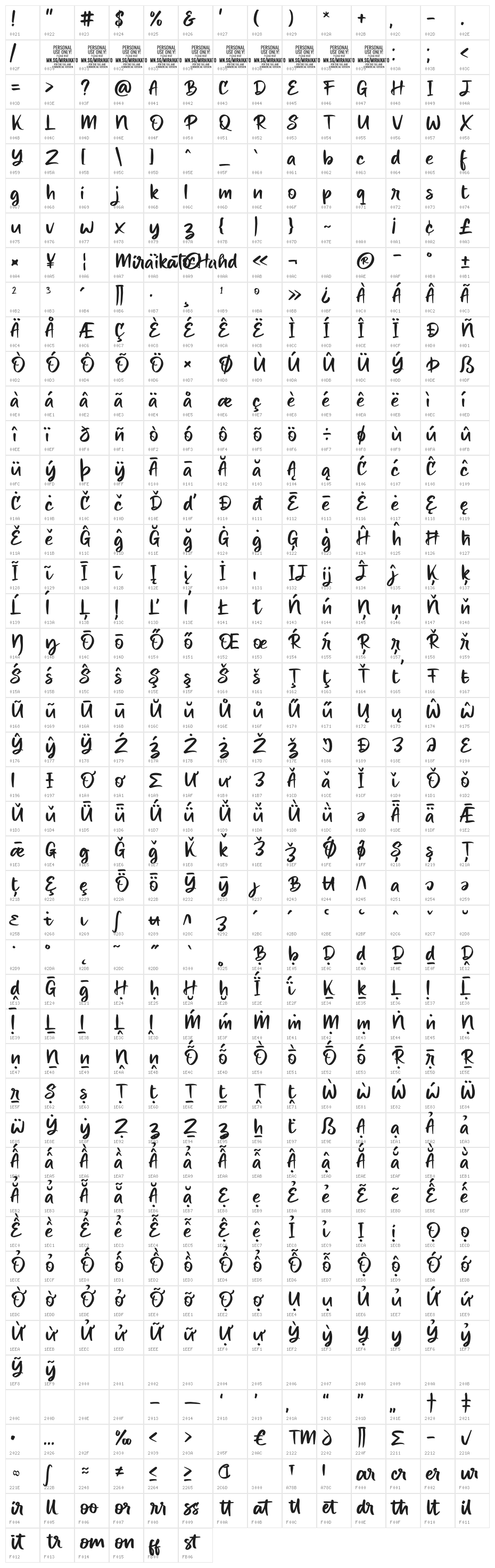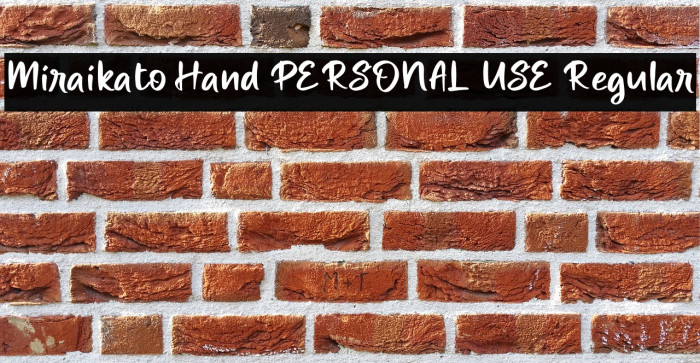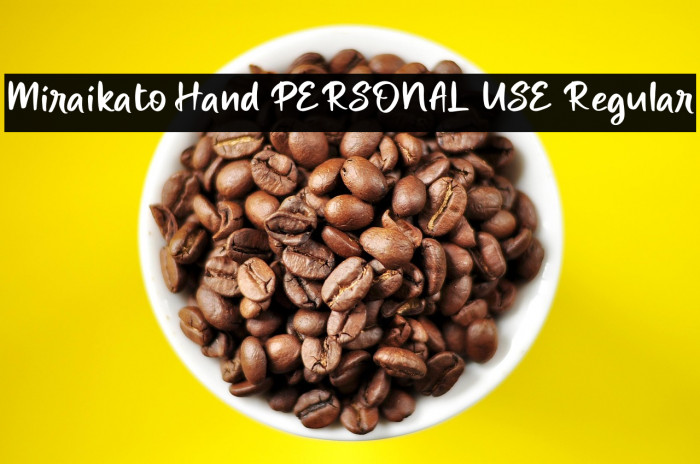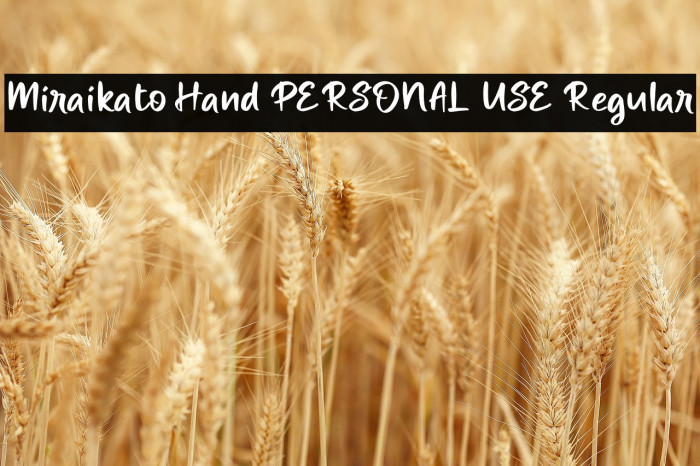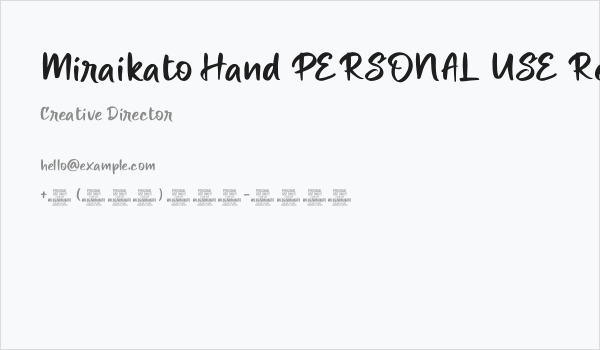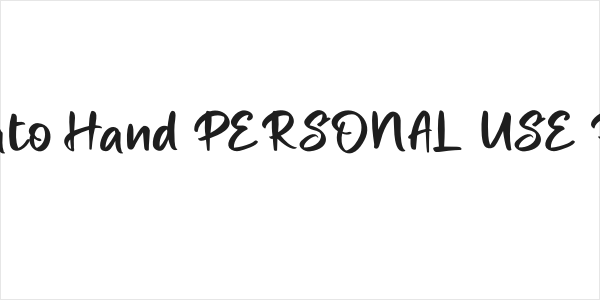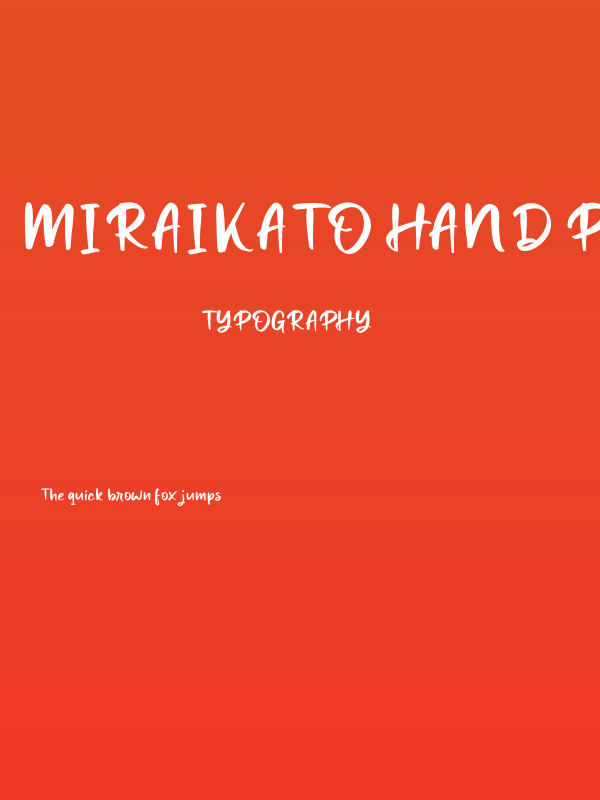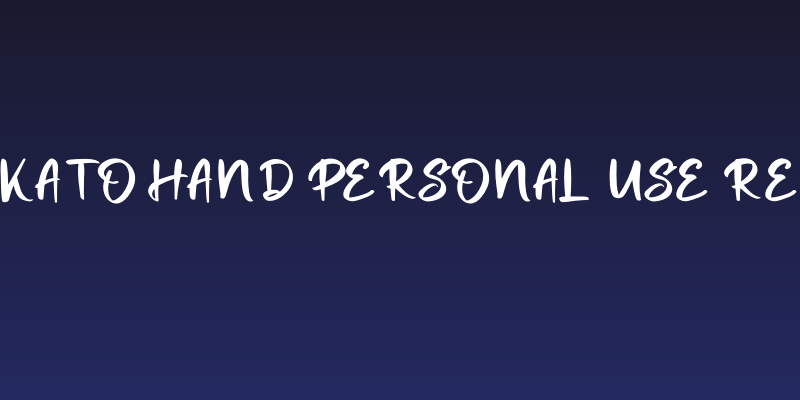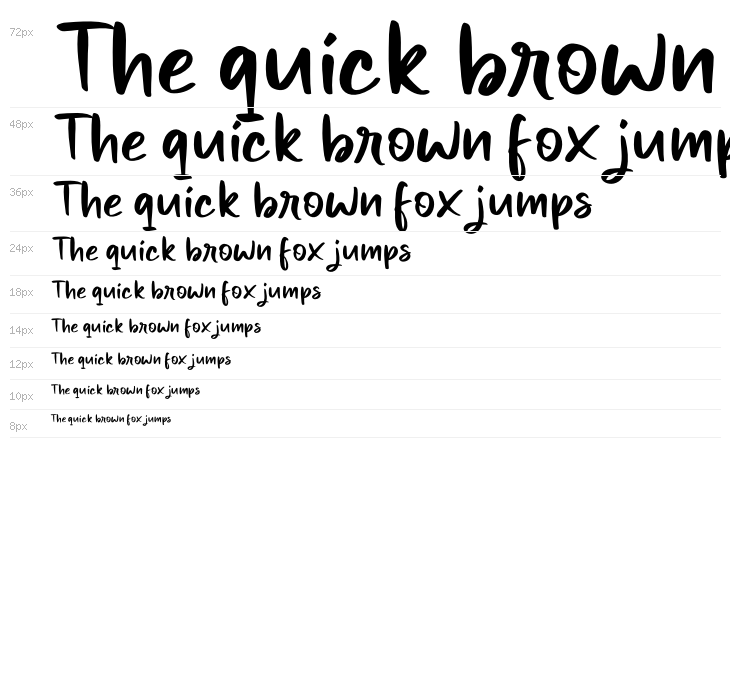
Miraikato Hand PERSONAL USE Regular Font
Miraikato Hand PERSONAL USE Regular Description
This font features a playful and energetic handwritten style, characterized by its bold and flowing strokes. The letters are slightly slanted, giving a dynamic and informal appearance. The uppercase letters are bold and prominent, while the lowercase letters maintain a consistent flow with rounded edges. The numerals and special characters are crafted with the same lively style, ensuring uniformity across all characters. The font's overall aesthetic is casual yet expressive, making it suitable for projects that require a personal touch.
| Use Case | Logos, Headlines, Social Media Graphics |
| Proposed Projects | Ideal for greeting cards, invitations, social media graphics, and branding projects that require a personal and lively touch. |